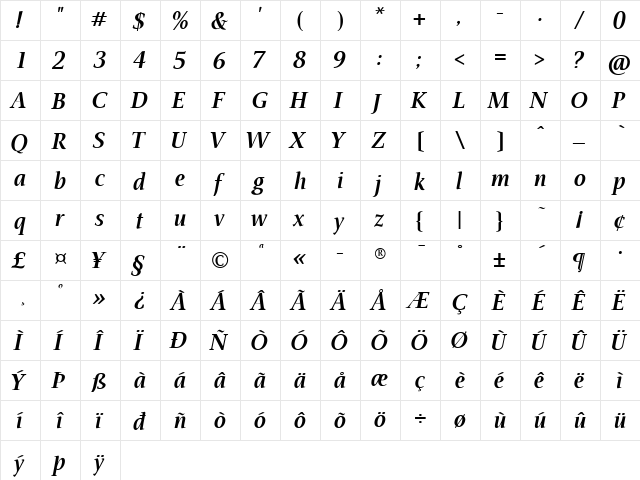
AIVeritasItalic Regular
| Foundry | \ A*I Veritas\ BlackItalic by Brian Sooy |
Design Context for AIVeritasItalic Typeface
AIVeritasItalic takes a measured approach to typography — its balanced proportions and neutral character make it a reliable workhorse for both digital and print work. The slanted form adds forward momentum and visual energy.